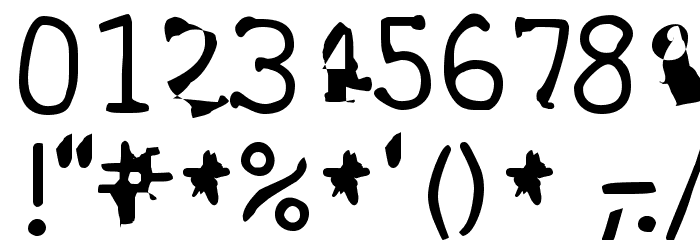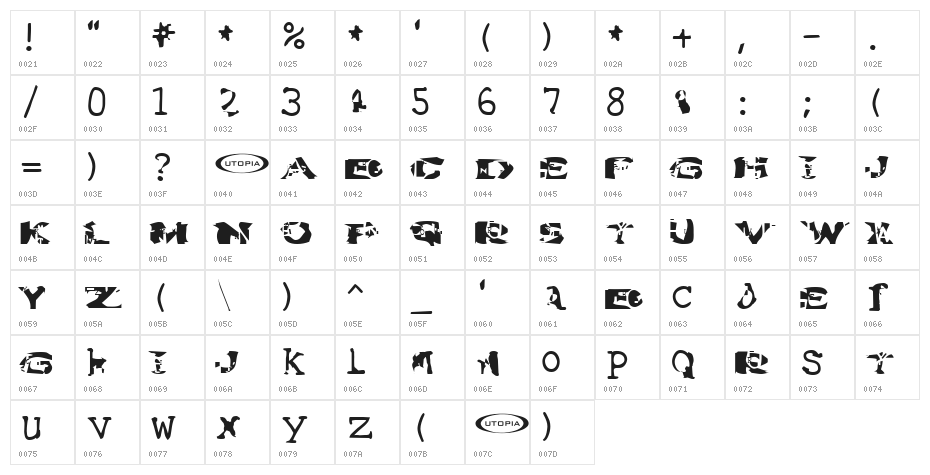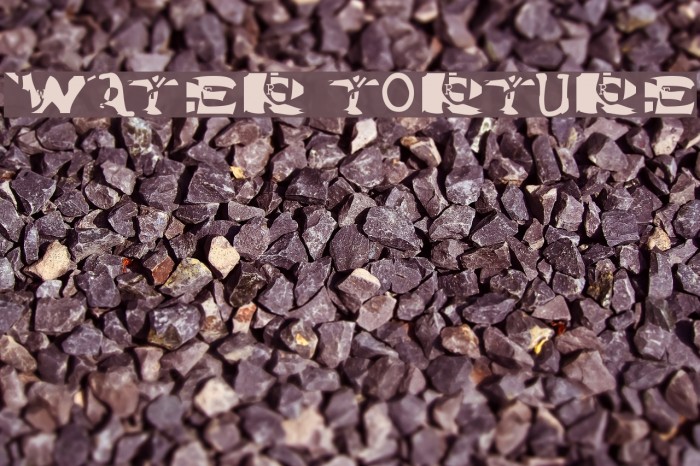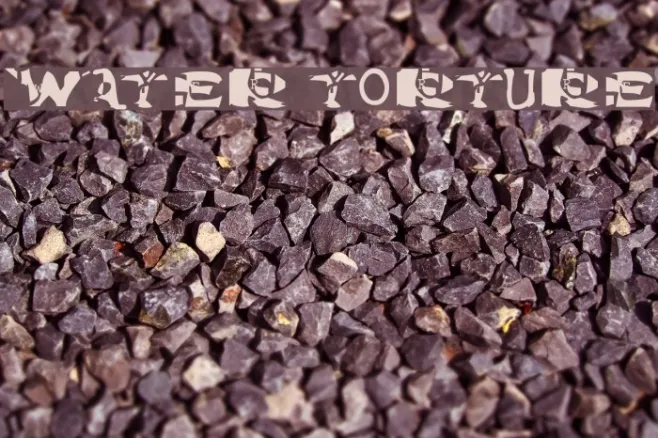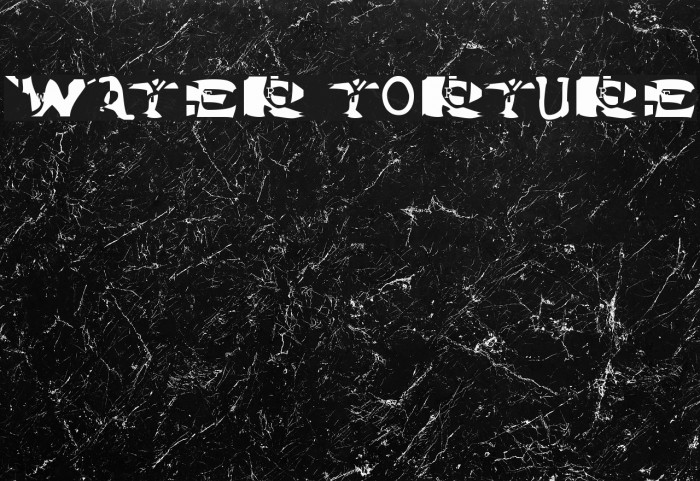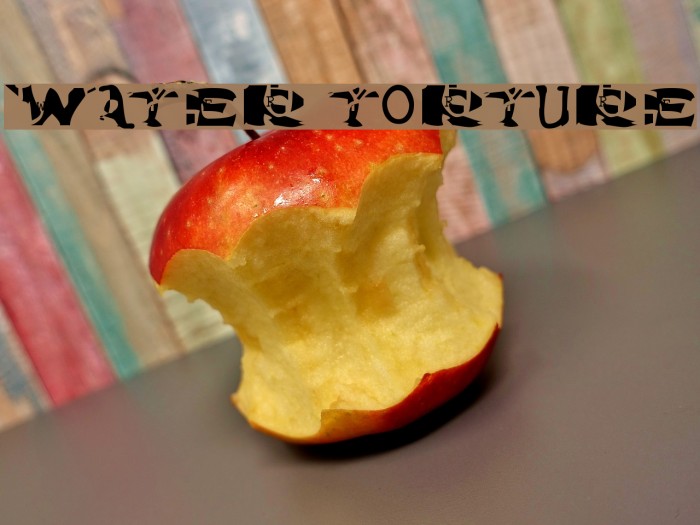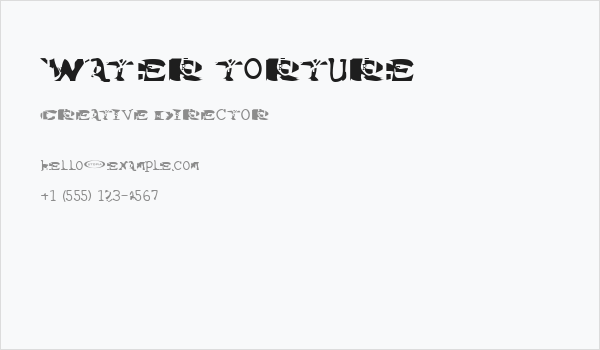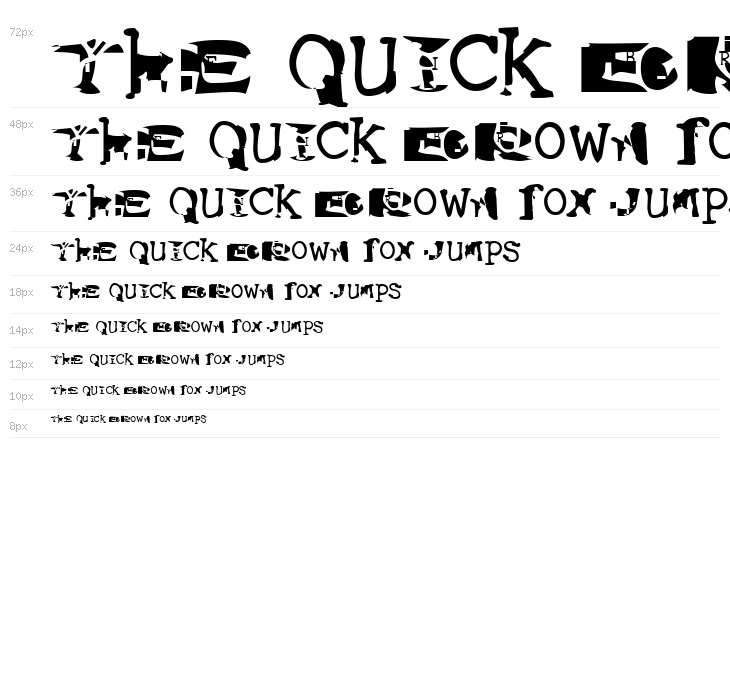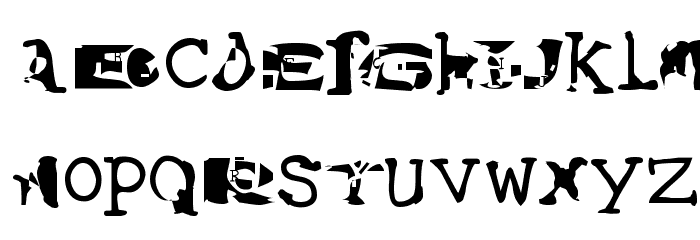
Water Torture Font
Water Torture Description
This font features a highly distressed and fragmented style, with characters appearing as if they have been eroded or splattered with ink. The uppercase and lowercase letters, as well as numbers and special characters, all exhibit a chaotic and uneven texture, giving the font a grunge and edgy appearance. The irregular shapes and inconsistent line thicknesses contribute to its unique and artistic look, making it stand out in any design. Despite its roughness, the font maintains legibility, with each character retaining its distinct form amidst the distortion.
| Overall Style | Grunge, Edgy |
| Use Case | Headlines, Logos, Artistic projects |
| Proposed Projects | Ideal for album covers, poster designs, street art projects, and any creative work that requires a bold, unconventional aesthetic. |